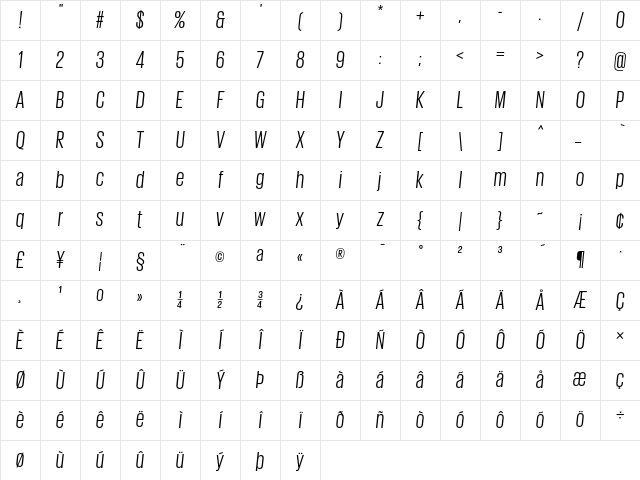
Giorgio Sans Regular Italic
Foundry: Commercial Type
Designer: Christian Schwartz & Paul Barnes
Design Context for Giorgio Sans Regular
Giorgio Sans Regular is a composed and adaptable typeface that performs quietly and consistently across a wide range of design contexts. The slanted form adds forward momentum and visual energy.
Pro Tip: Use Giorgio Sans Regular for emphasis, pull quotes, and subheadings where its slanted energy can add rhythm to the layout.